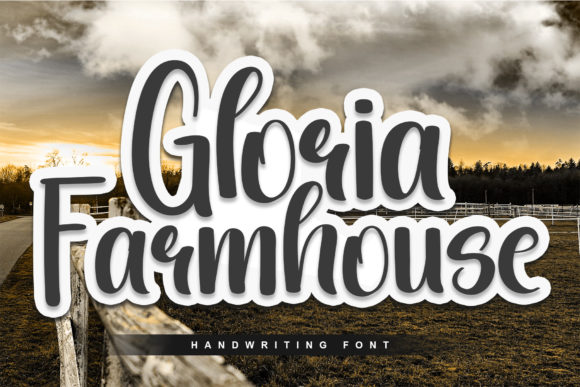
Unlock the beauty of heartfelt expression with Gloria Farmhouse Font, an enchanting creation of YanStudio, tailored to elevate your branding and design endeavors. This elegant script font captures the essence of timeless charm, imbuing every letter with a touch of individuality and grace.
Gloria Farmhouse is not just a collection of characters; it's a gateway to a world of creativity, where your ideas take center stage and captivate your audience. Its intricate strokes and flowing lines dance harmoniously, creating a visual masterpiece that draws attention and ignites emotion.
Step into a realm where elegance and creativity intertwine, where every letter is a delicately crafted work of art. Let Gloria Farmhouse Font be your muse, inspiring you to craft logos that stand out, branding that resonates, and quotes that leave a lasting impression.
With Gloria Farmhouse Font, you'll discover a font that's as versatile as it is beautiful. Its timeless appeal shines in various contexts, whether you're crafting stunning wedding invitations, heartfelt greeting cards, or captivating social media posts. Its ability to seamlessly blend with different design styles makes it a true chameleon, adapting effortlessly to match your unique vision.
Embrace the power of Gloria Farmhouse Font and unlock the door to a world of design possibilities. Its exquisite charm will transform your creative projects into masterpieces, captivating your audience and leaving them enchanted.